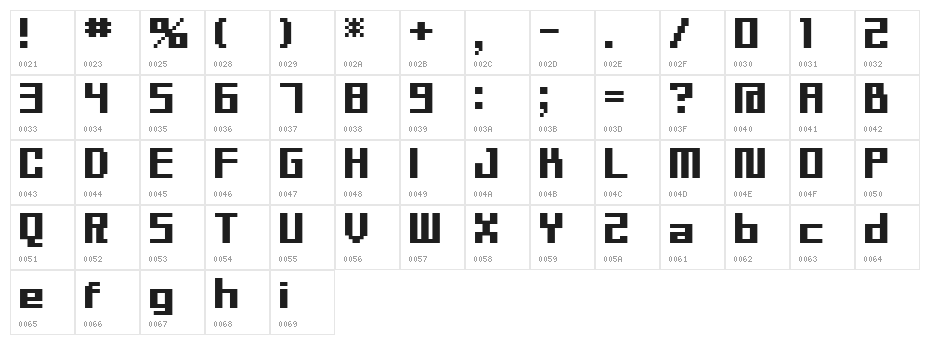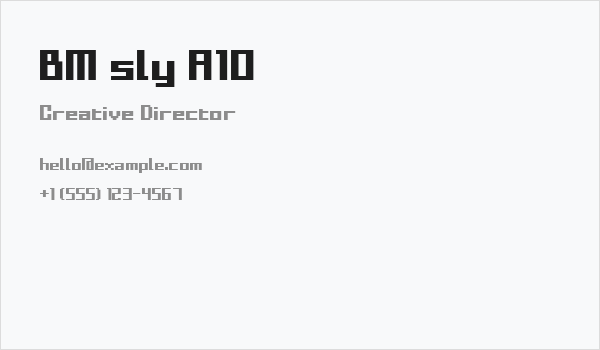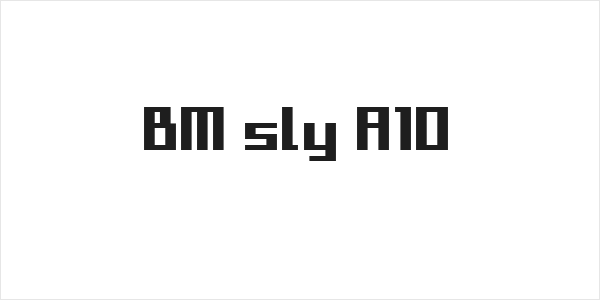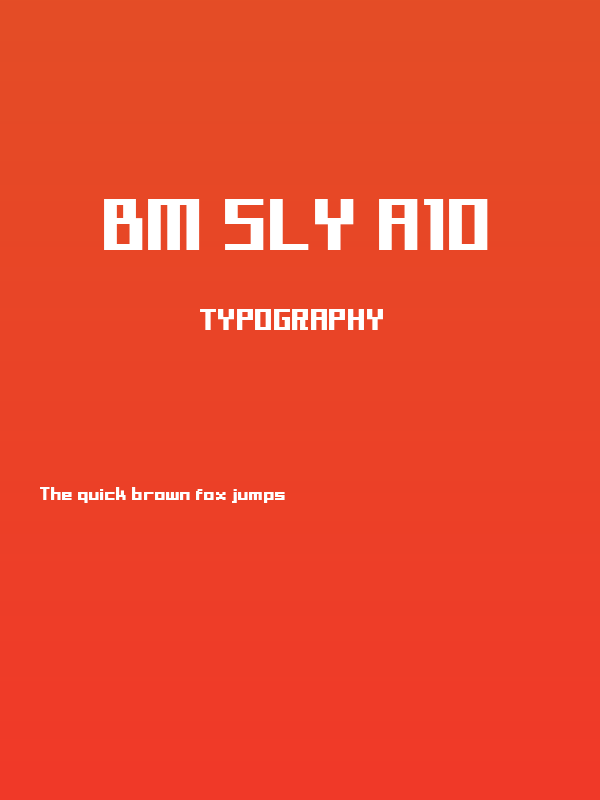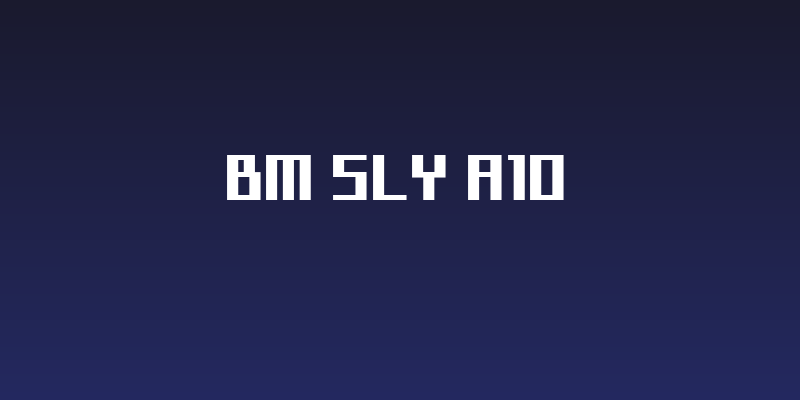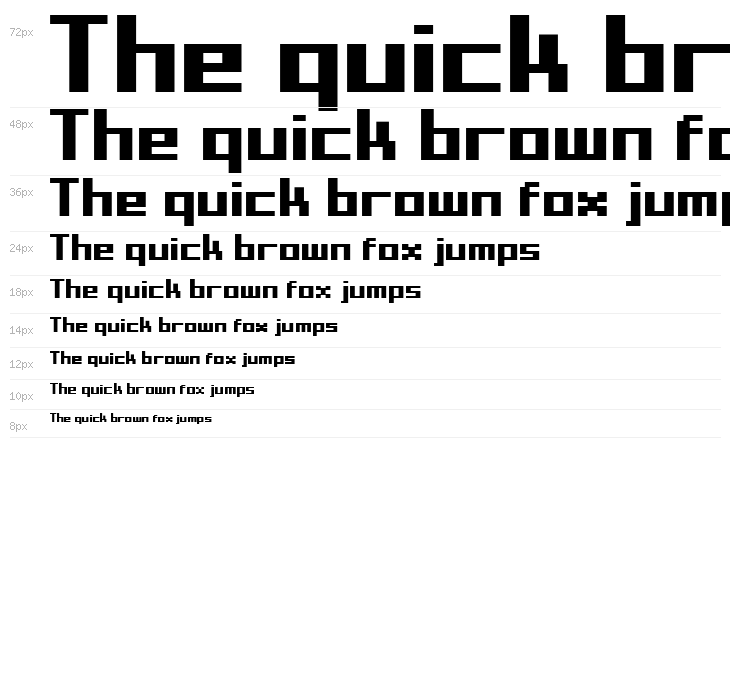
BM sly A10 Font
BM sly A10 Description
This font features a bold, blocky design with a distinctly pixelated aesthetic reminiscent of early digital displays and retro video games. The characters are uniformly wide, with a consistent stroke thickness that gives it a monospaced appearance. The uppercase and lowercase letters maintain a similar height, enhancing the font's geometric and structured look. Numbers and special characters follow the same design principles, ensuring a cohesive visual style across all elements. The font's simplicity and clarity make it highly legible, even at smaller sizes, while its unique style adds a touch of nostalgia and modernity.
| Overall Style | Retro, Digital |
| Use Case | Headlines, Logos, Digital displays |
| Proposed Projects | Ideal for retro-themed designs, video game graphics, digital art projects, and tech-inspired branding. |